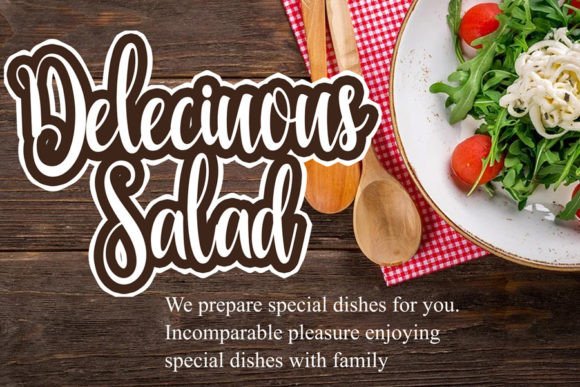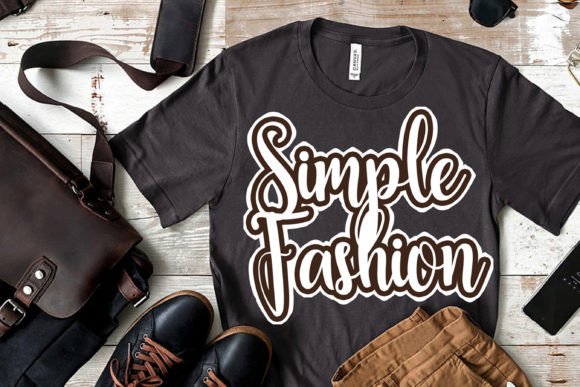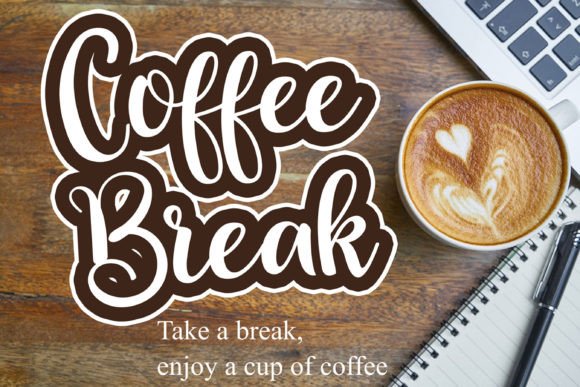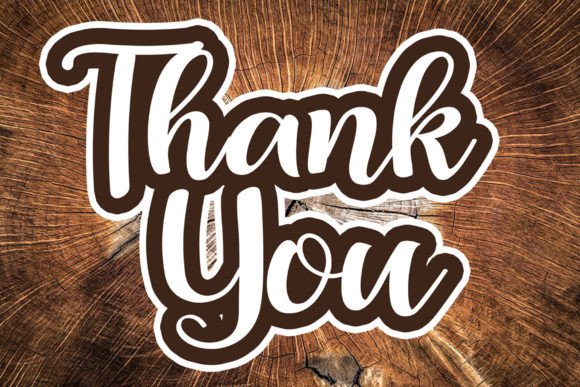
Introducing Hand Made: The Fresh and Neat Handwritten Font for All Occasions
Are you tired of using the same old fonts for your designs and crafts? Look no further! Hand Made is a beautiful, fresh, and neat handwritten font that’s perfect for a variety of projects. Whether you’re a digital designer, crafter, or simply someone who loves making greeting cards, Hand Made has the potential to become your new favorite go-to font.
The Versatility of Hand Made Font
One of the best things about Hand Made is its versatility. This font can be used for a wide range of projects, from digital designs and presentations to crafts and greeting cards. Its clean and neat lines make it perfect for creating visually appealing text that will grab the attention of your audience. Whether you’re working on a professional project or a personal craft, Hand Made is sure to impress.
Why Choose Hand Made Font?
So, why choose Hand Made over other fonts? Here are just a few reasons why this font stands out:
- Fresh and Unique: Hand Made is a fresh and unique font that’s sure to add a touch of personality to your designs. Its handwritten lines give it a personal and human touch that’s hard to find with other fonts.
- Neat and Clean: Unlike some handwritten fonts that can be messy and hard to read, Hand Made is neat and clean. Its lines are smooth and flowing, making it easy to read and understand.
- Highly Versatile: As mentioned earlier, Hand Made can be used for a wide range of projects. Its versatility makes it a great addition to any designer’s or crafter’s toolkit.
Using Hand Made Font for Digital Design
If you’re a digital designer, you’ll love using Hand Made for your projects. This font is perfect for:
- Web Design: Use Hand Made to add a personal touch to your website’s text. Its clean lines and flowing script make it easy to read and visually appealing.
- Social Media Graphics: Hand Made is perfect for creating social media graphics that stand out. Use it to add text to your graphics and make them more engaging.
- Presentations: Add a touch of personality to your presentations with Hand Made. Its unique lines and flowing script make it perfect for titles, headings, and body text.
Using Hand Made Font for Crafts
If you’re a crafter, you’ll love using Hand Made for your projects. This font is perfect for:
- Greeting Cards: Use Hand Made to add a personal touch to your greeting cards. Its clean lines and flowing script make it perfect for writing messages and greetings.
- Scrapbooking: Hand Made is perfect for scrapbooking projects. Use it to add text to your pages and make them more visually appealing.
- DIY Projects: Add a touch of personality to your DIY projects with Hand Made. Its unique lines and flowing script make it perfect for labels, signs, and other text elements.
In conclusion, Hand Made is a fresh and neat handwritten font that’s perfect for a variety of projects. Its versatility, unique lines, and flowing script make it a great addition to any designer’s or crafter’s toolkit. Whether you’re working on a digital design, craft, or simply making greeting cards, Hand Made has the potential to become your new favorite go-to font. So why not give it a try and see how it can elevate your designs and crafts?
Tips and Tricks for Using Hand Made Font
Here are a few tips and tricks for using Hand Made:
- Experiment with Different Sizes: Hand Made looks great in a variety of sizes. Experiment with different sizes to find the one that works best for your project.
- Pair it with Other Fonts: Hand Made pairs well with other fonts. Try pairing it with a bold font for headings and a clean font for body text.
- Use it for Titles and Headings: Hand Made is perfect for titles and headings. Use it to add a touch of personality to your text and make it more visually appealing.
With these tips and tricks, you’ll be well on your way to creating beautiful designs and crafts with Hand Made. So why not give it a try and see how it can elevate your work?